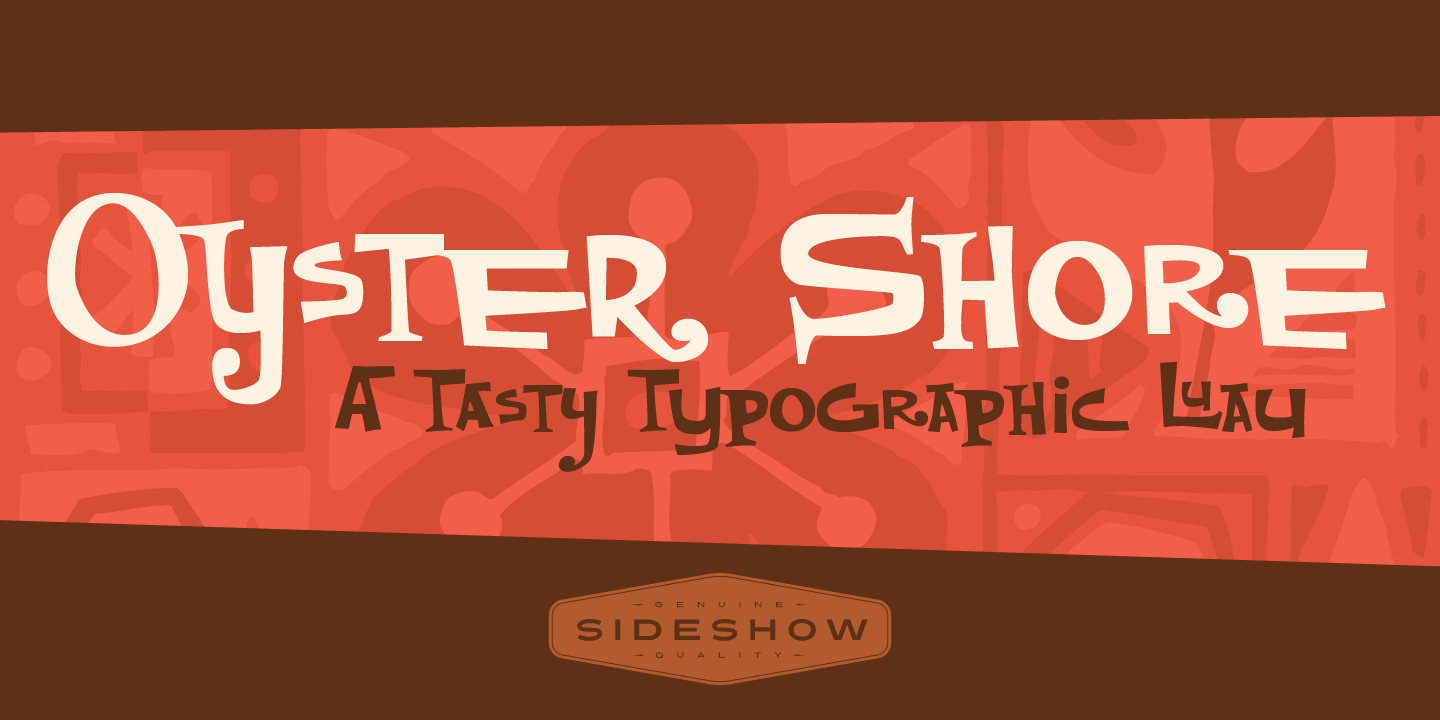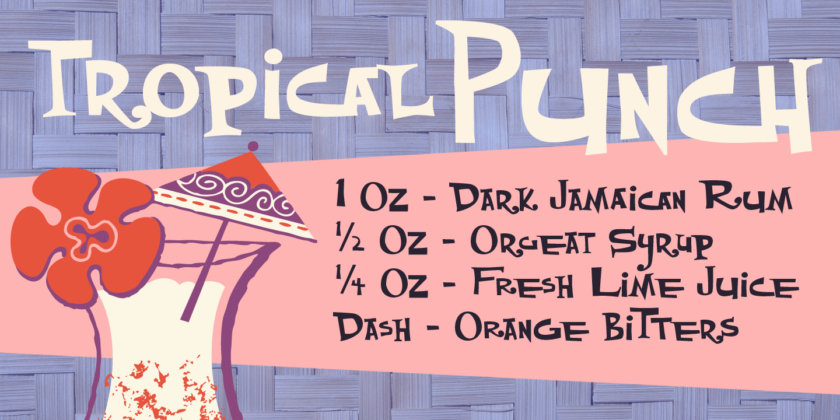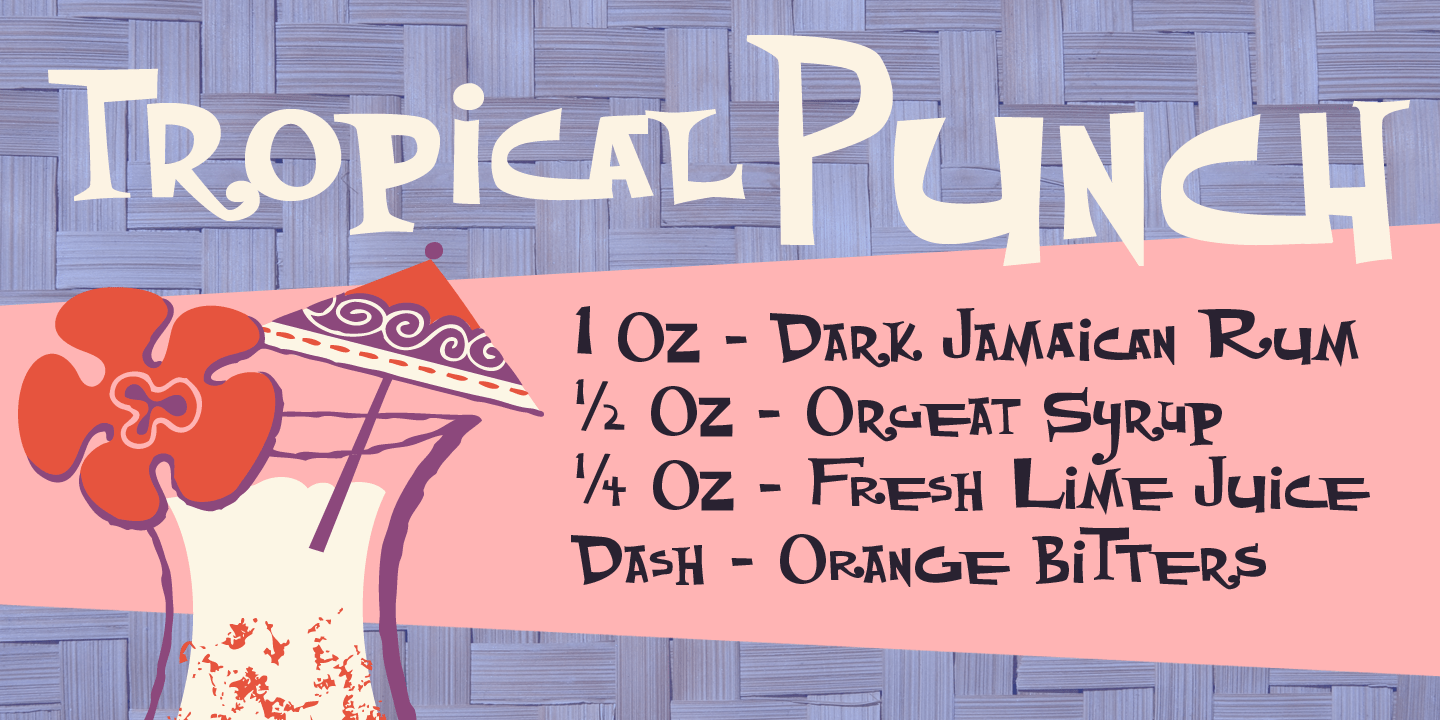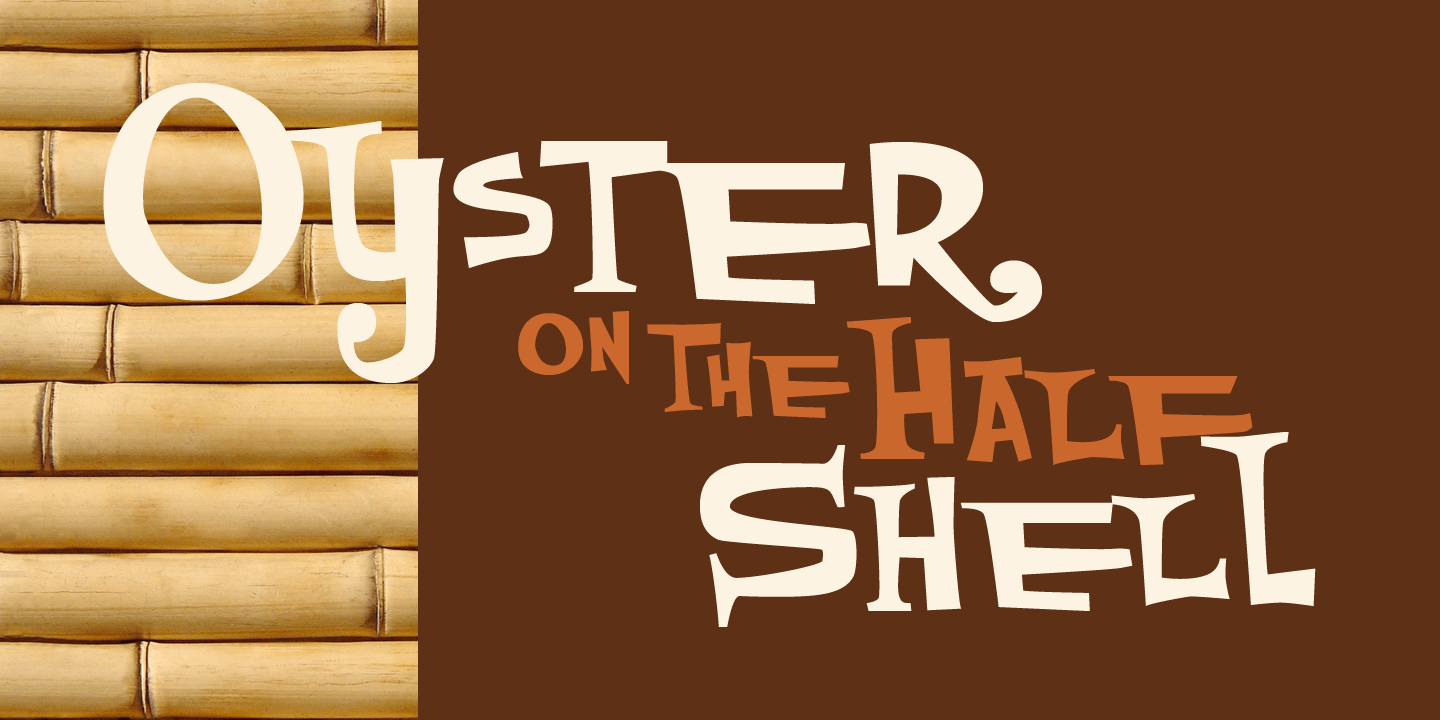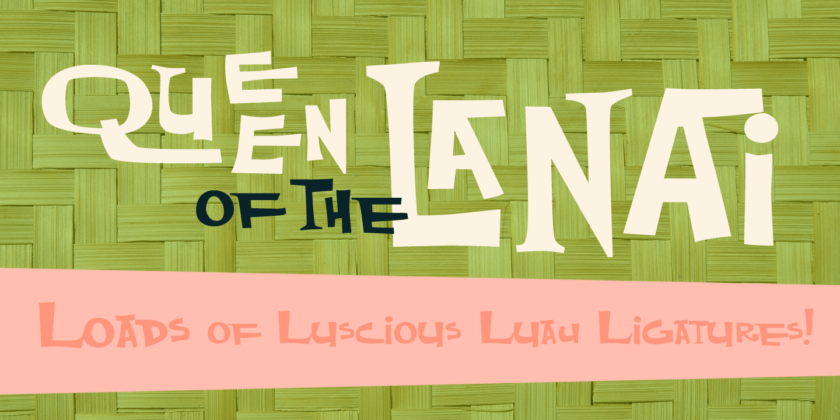
Oyster Shore
About Oyster Shore
Aloha! It\’s time once again for the Sideshow company luau and this year we want you to join us for all the tropical tiki fun. And where do we go for our annual south seas shindig? Why, sunny OYSTER SHORE of course! Feel the warm, abundant alternates squish…